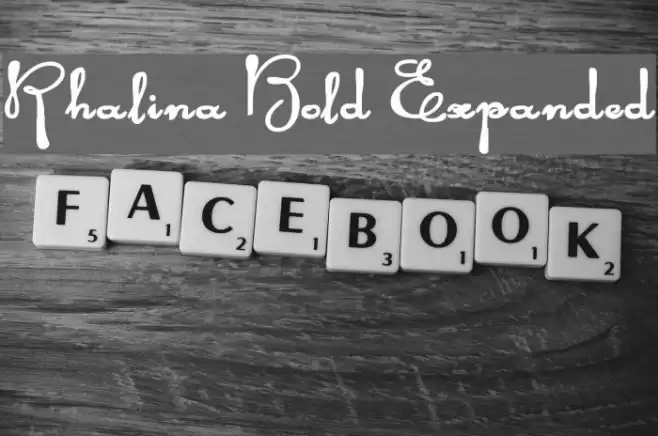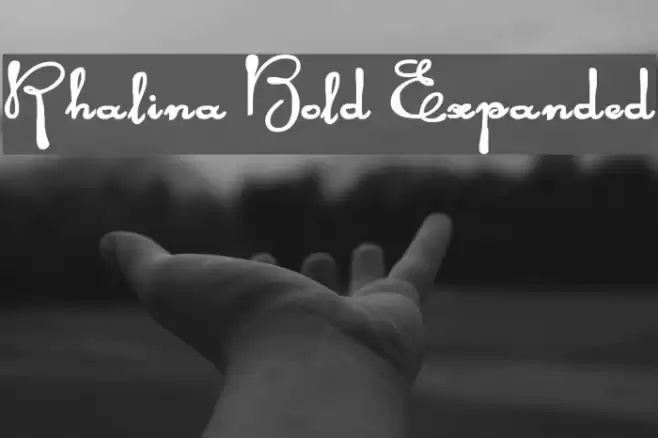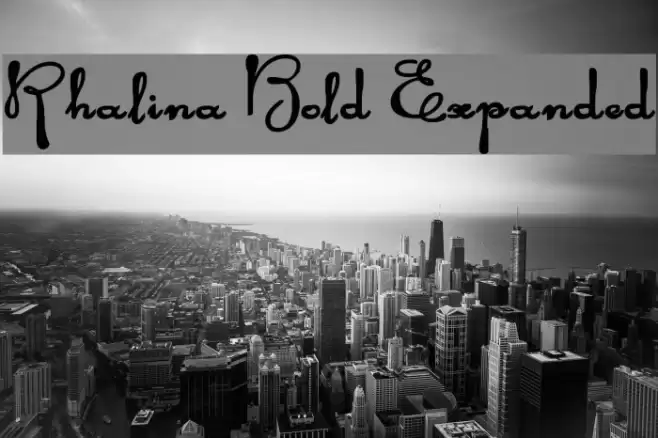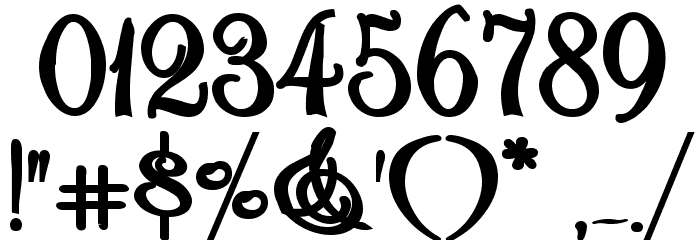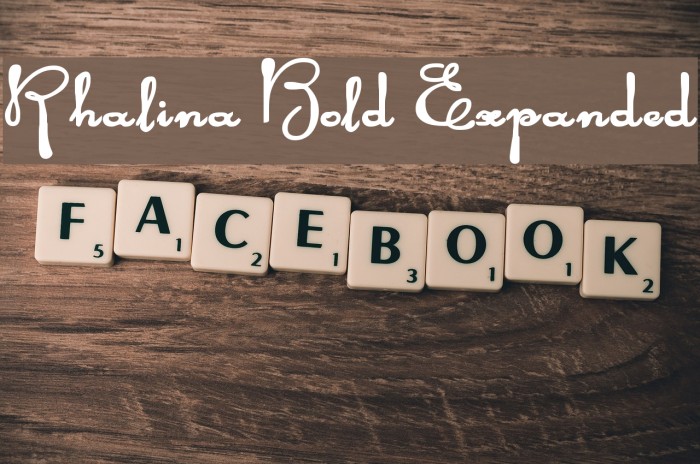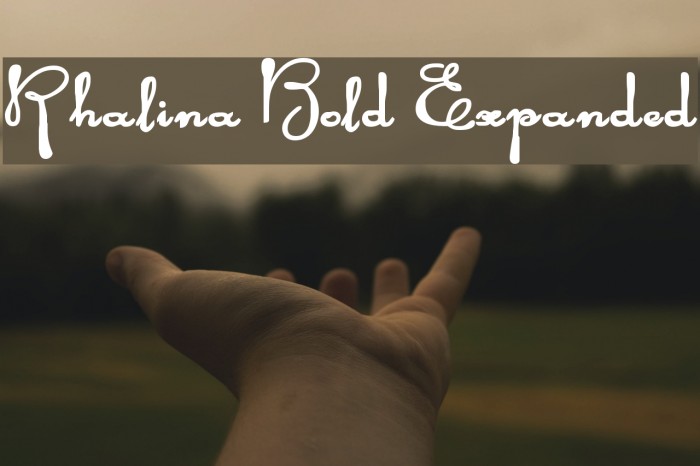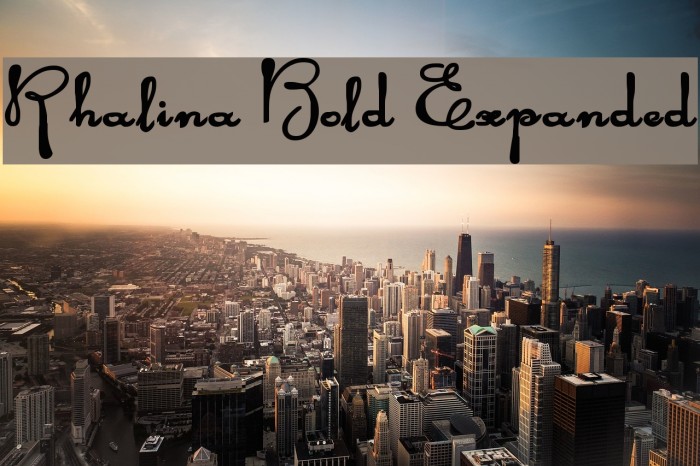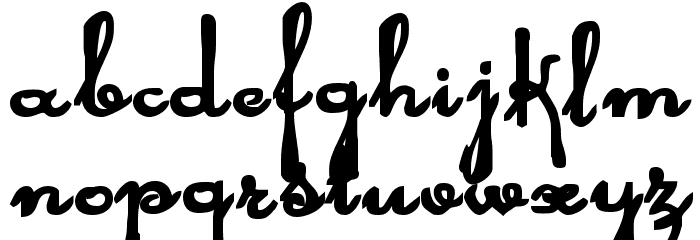
Rhalina Bold Expanded Font
Rhalina Bold Expanded Description
This font features an elaborate and artistic style with a strong decorative flair. The uppercase letters are adorned with intricate swirls and loops, giving them a whimsical and ornate appearance. The lowercase letters maintain a bold and flowing script style, which complements the uppercase design. The numerals are equally stylized, with a playful yet elegant form. Special characters are designed with the same attention to detail, featuring unique embellishments that enhance their visual appeal. This font is perfect for projects that require a touch of elegance and creativity.
An ornate and decorative font with bold, flowing script and intricate details from Uncategorized fonts.
- Proposed Projects: Ideal for wedding invitations, greeting cards, logos, and artistic posters.
- Use Case: Logos, Headlines, Artistic projects